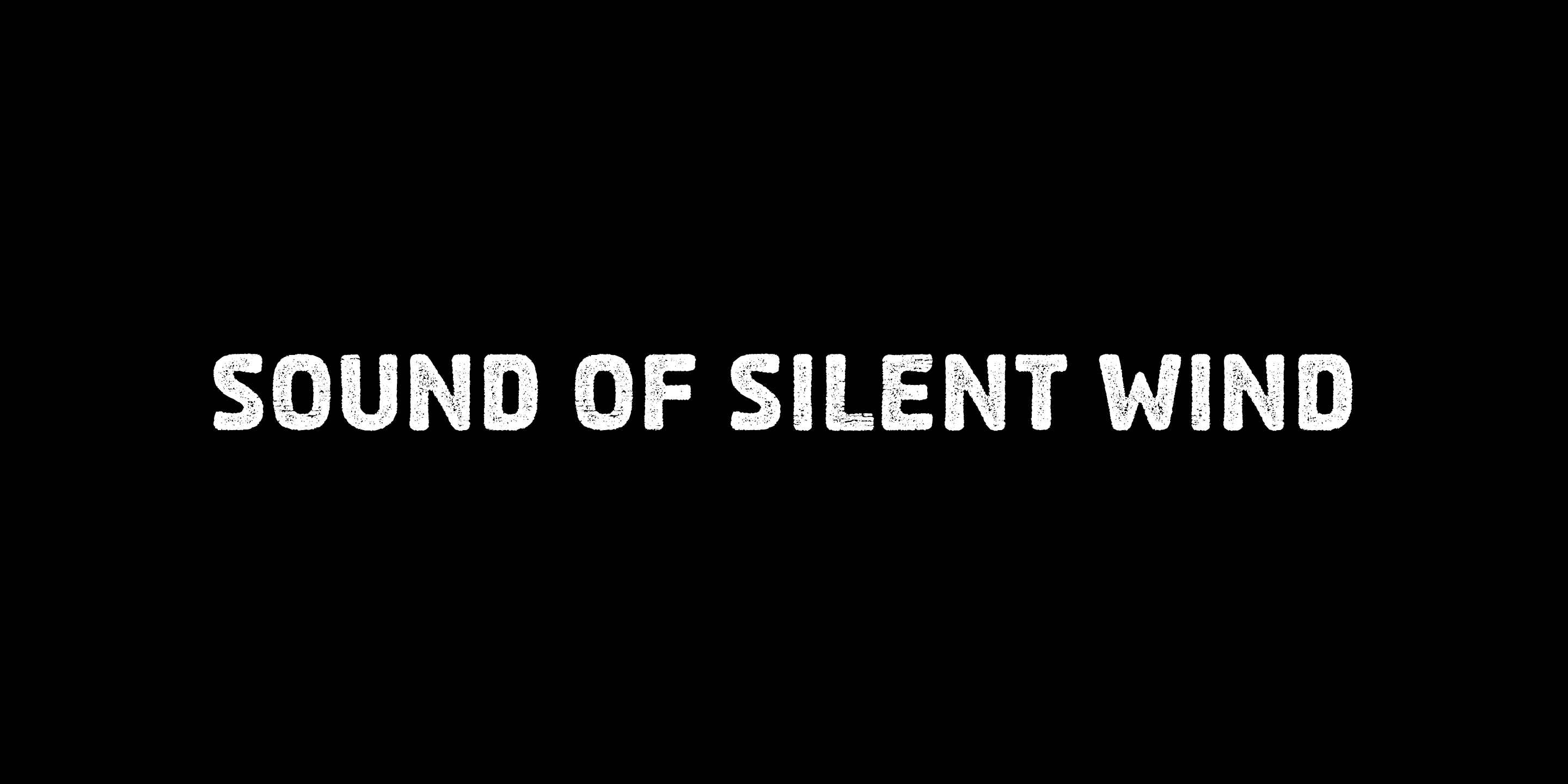
Elpiedra Font is perfect for stone masonry businesses, architectural firms, monument designers, natural stone suppliers, sculpture studios, landscape architecture, geological publications, carved stone signage, and earthy construction communications. This robust typeface brings stone-carved authenticity and geological strength to projects requiring natural typography with earthy appeal and solid craftsmanship character.
What makes Elpiedra Font exciting is its stone-carved authenticity that embodies the timeless craft of stone masonry and geological formation with remarkable solidity and natural character that reflects the enduring beauty of carved stone work. The font features rugged letterforms with stone-like texture and earth-inspired proportions that reflect the permanence of natural stone and the skilled artistry of master stone carvers. Its enduring personality and natural essence make it irresistible for construction brands seeking typography that communicates durability while celebrating the ancient craft of stone working and geological beauty.
The Elpiedra Font family includes solid weights and natural styles: Light, Regular, Medium, Bold, and carved variations with stone alternates and geological symbols. Each weight maintains the font's rugged character while offering designers complete flexibility for construction branding and natural design applications requiring authentic earth atmosphere and stone-carved visual presentation.
Whether you're designing for stone contractors or architectural projects, Elpiedra Font Free Download provides designers with a solid, earth-focused typeface solution. The font's geological aesthetics and carved styling make it ideal for stone masons, landscape architects, sculpture artists, and natural building contractors. Its enduring presence ensures your message communicates permanence and craftsmanship while maintaining excellent stone readability. The comprehensive character set includes geological symbols and stone decorations, making it perfect for creating lasting headlines and brand identities that celebrate stone craftsmanship and establish meaningful connections with audiences seeking authentic natural building materials and timeless stone artistry.